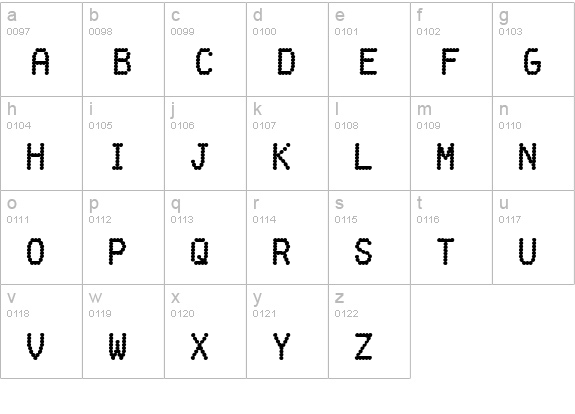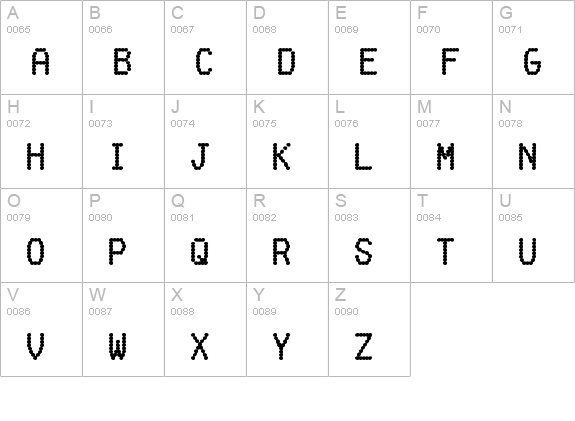
Fake Receipt Font Details
Introducing Fake Receipt font, a playful and quirky typeface that captures the essence of whimsical creativity. With its unique design inspired by vintage receipts, this font adds a touch of nostalgia to any project. Whether you're designing a fun poster, creating a funky logo, or crafting eye-catching merchandise, Fake Receipt font is sure to stand out. The best part? Fake Receipt font is completely free to download at FontsMarket.com! Take your designs to the next level with this versatile and charming font that is perfect for adding a touch of personality to your creations. Download Fake Receipt font today and let your creativity run wild!